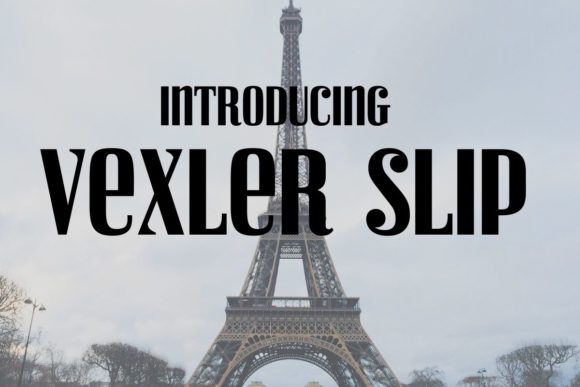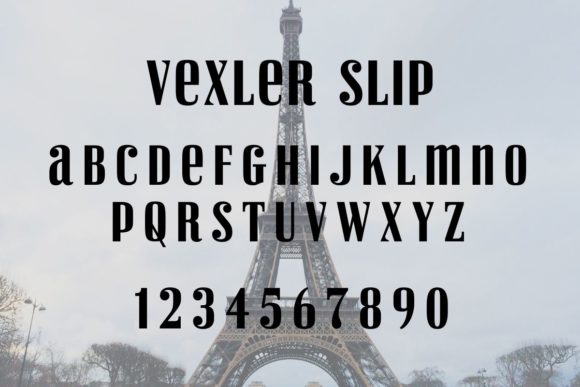
HomePersonal Use FreeVexler Slip Personal Use Free Vexler Slip FacebookXPinterestWhatsApp 1 of 2 About Vexler Slip Font Vexler Slip is a curly unicase display font with french flavor. It is a bold and beautiful typeface to use for your presentations, flyers, and quotes to print onto merchandise. DOWNLOAD NOW People also explored Globetrot Font Qaliya Font Melyna Font Christova Font Engrave Font Watermelon Sugar Font Cheetah Font Crafty Sons Font Sensational Font 426 0 TagsVexler Slip Font Previous articleUchiyamaNext articleSybil Green LEAVE A REPLY Cancel reply Comment: Please enter your comment! Name:* Please enter your name here Email:* You have entered an incorrect email address! Please enter your email address here Website: Save my name, email, and website in this browser for the next time I comment. Personal Use Free Hunters Personal Use Free Read more about this font Aline Personal Use Free Read more about this font Lanilla Personal Use Free Read more about this font Cataleya Personal Use Free Read more about this font BLOG Fonts That Capture the Spirit of New York City New York City is more than just a place—it’s an experience, a rhythm, a visual language... Using Fonts in Digital Marketing: Tips to Strengthen Your Brand Identity Transform Your Website: Elevate Your Typography with 7 Best Web Font Generators To increase your work productivity, choose the most readable fonts.